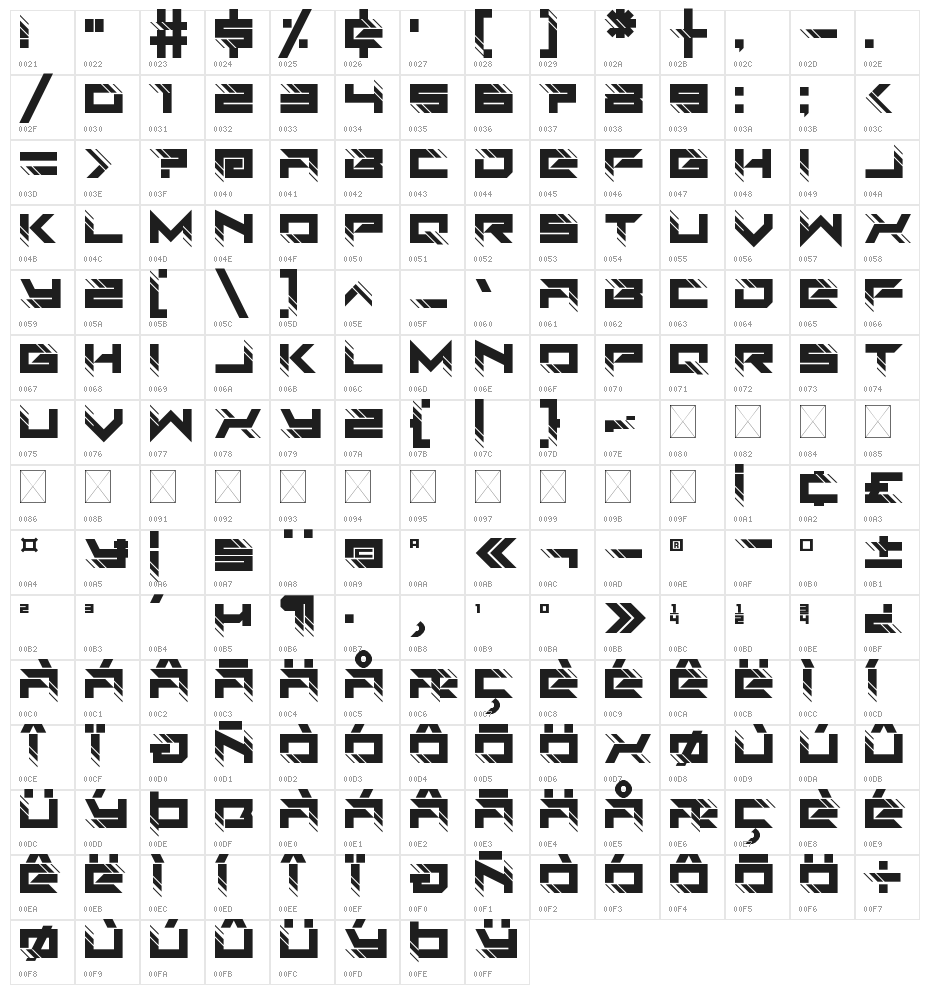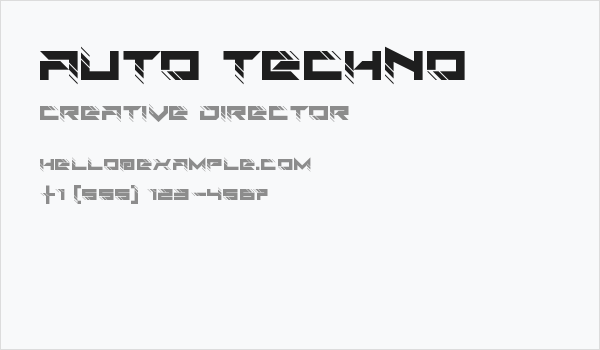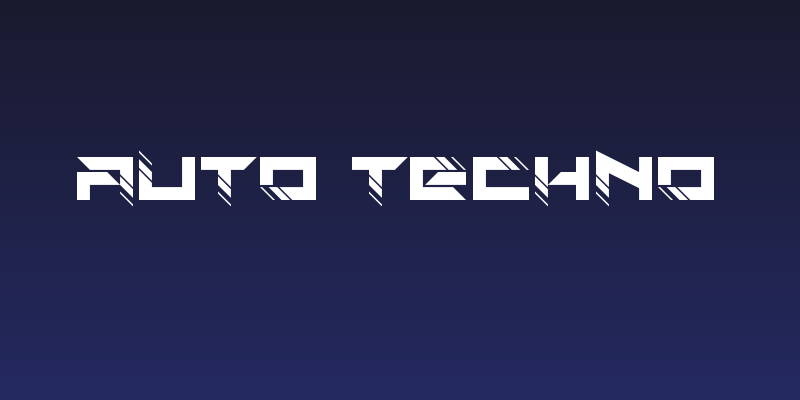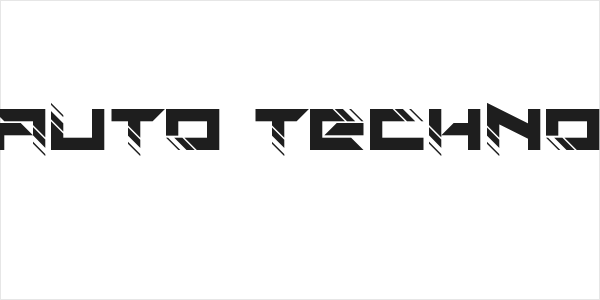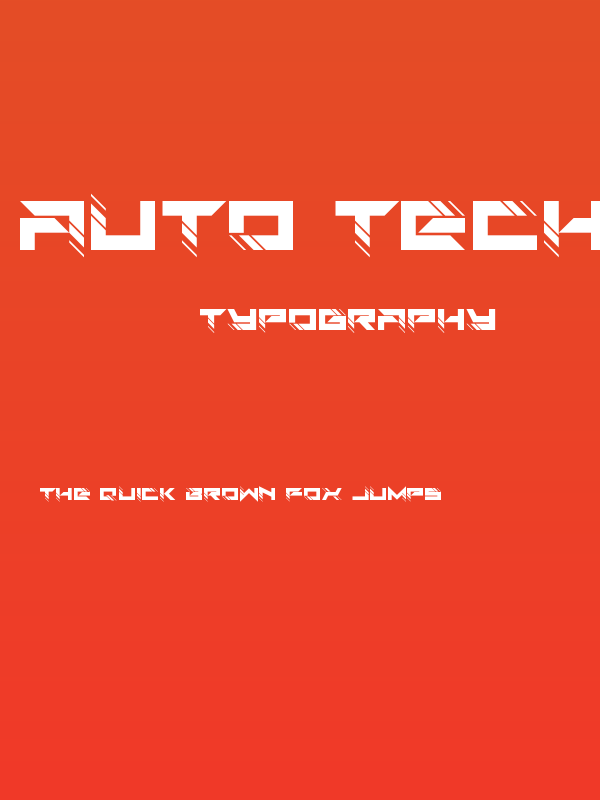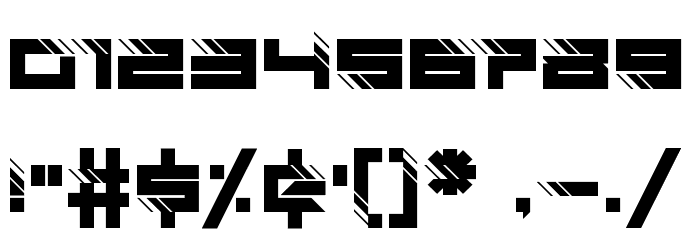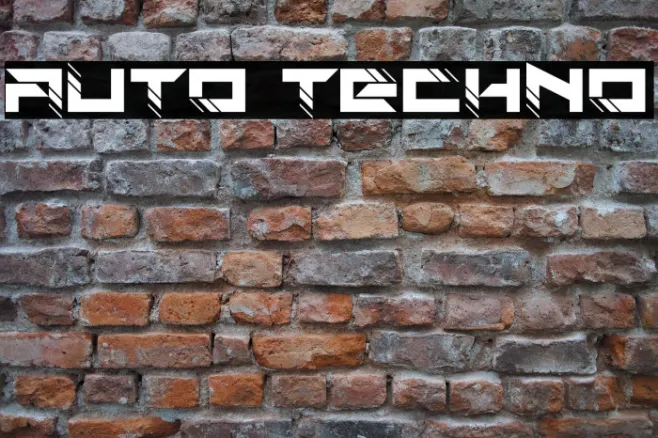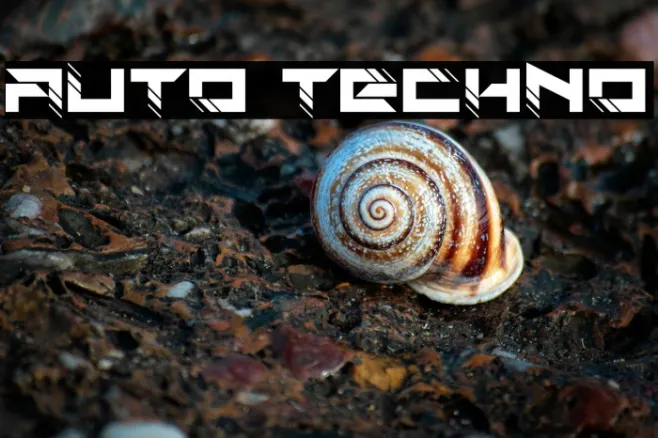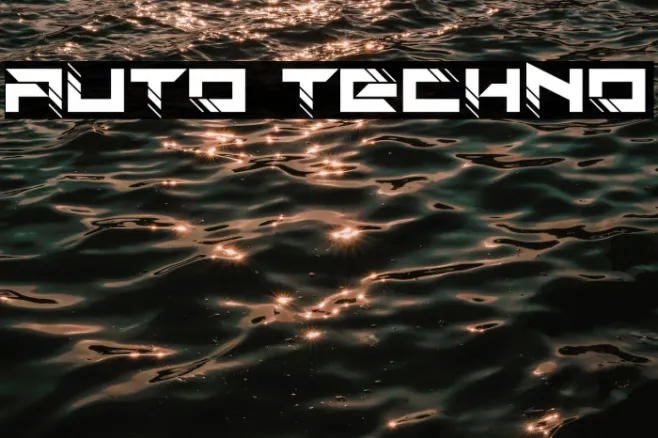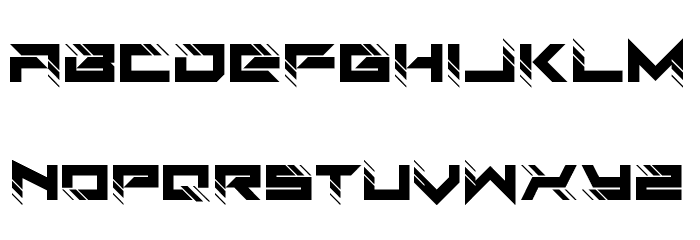
Auto Techno Font
Auto Techno Description
This font features a futuristic and angular design, characterized by sharp edges and geometric shapes. The letters are bold and have a distinct techno-inspired aesthetic, with diagonal lines cutting through each character to create a sense of movement and speed. The font is highly stylized, making it ideal for projects that require a modern and edgy look. The uniformity in stroke width and the consistent use of angular elements give it a cohesive and striking appearance. The font is suitable for digital and print media, especially in contexts that emphasize technology, innovation, or science fiction themes.
| Proposed Projects | Ideal for technology branding, sci-fi movie posters, video game titles, and digital interfaces. |